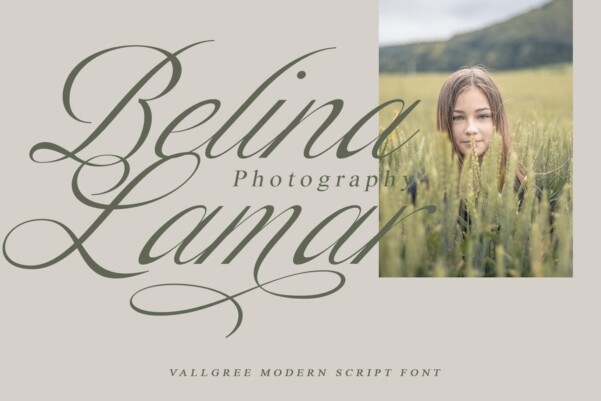
Vallgre Font
Designer: Handpikproject
Vallgre Font is perfect for many projects: book, magazines, Logo, branding, photography, quotes, blog header, poster, advertisements, etc.